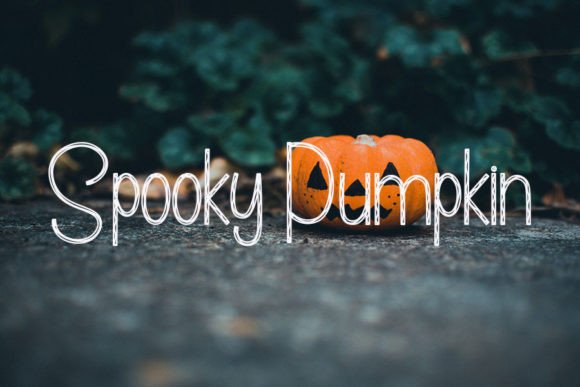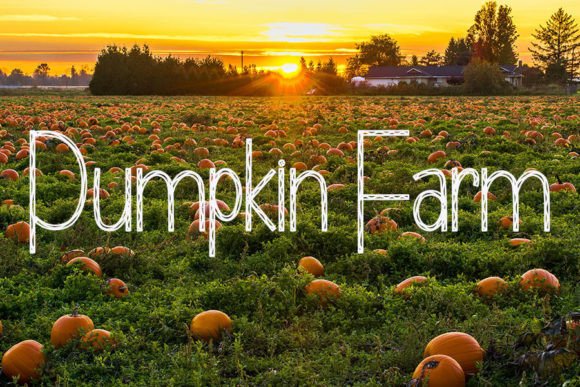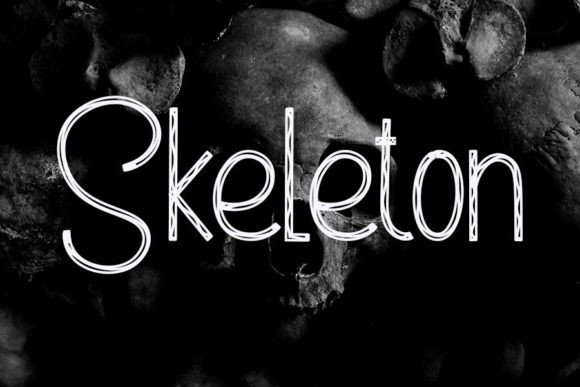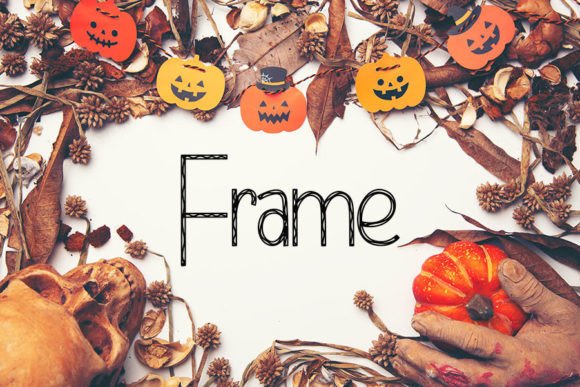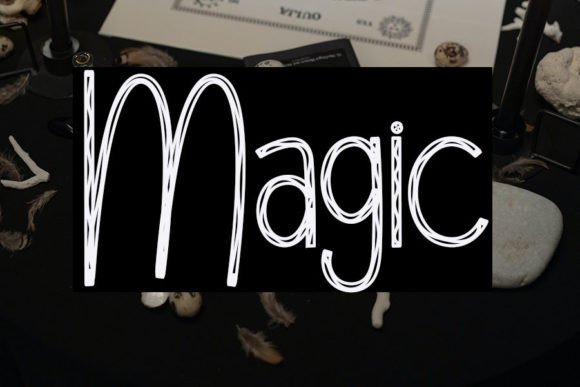
Happy Halloween Font: The Perfect Addition to Your Spooky Season Designs
Are you looking for a font that captures the essence of Halloween? Look no further than the Happy Halloween Font! This fun and cute handwritten font is perfect for adding a touch of whimsy and personality to your favorite projects. With its incredibly distinct and timeless style, you’ll fall in love with the Happy Halloween Font and want to use it to create spectacular designs all season long.
The Features of Happy Halloween Font
The Happy Halloween Font is a unique and versatile font that offers a range of features that make it perfect for designers and crafters. Some of its key features include:
- Handwritten style: The Happy Halloween Font has a charming handwritten style that’s perfect for creating spooky and fun designs.
- Distinctive look: The font’s incredibly distinct style sets it apart from other fonts, making it perfect for creating eye-catching designs.
- Timeless appeal: The Happy Halloween Font has a timeless quality that ensures it will remain popular for years to come.
Why Choose Happy Halloween Font?
So why choose the Happy Halloween Font for your spooky season designs? Here are just a few reasons:
- Perfect for Halloween designs: The Happy Halloween Font is specifically designed for Halloween, making it the perfect choice for creating spooky and fun designs.
- Adds a touch of whimsy: The font’s playful and whimsical style adds a touch of personality to any design.
- Versatile: The Happy Halloween Font can be used for a range of projects, from party invitations to social media graphics.
Design Ideas Using Happy Halloween Font
The Happy Halloween Font is perfect for a range of spooky season designs. Here are a few ideas to get you started:
- Party invitations: Create spooky and fun party invitations using the Happy Halloween Font.
- Social media graphics: Use the font to create eye-catching social media graphics, such as Halloween-themed Facebook posts or Instagram stories.
- T-Shirt designs: Create spooky and fun t-shirt designs using the Happy Halloween Font.
- Halloween cards: Use the font to create spooky and fun Halloween cards for friends and family.
Tips and Tricks for Using Happy Halloween Font
Here are a few tips and tricks for using the Happy Halloween Font:
- Experiment with colors: The Happy Halloween Font looks great in a range of colors, so don’t be afraid to experiment and find the perfect color scheme for your design.
- Mix and match fonts: The Happy Halloween Font pairs well with other fonts, so try mixing and matching to create a unique look.
- Use graphics and images: Add graphics and images to your design to make it more visually appealing.
In conclusion, the Happy Halloween Font is a fun and cute handwritten font that’s perfect for adding a touch of whimsy and personality to your spooky season designs. With its incredibly distinct and timeless style, you’ll fall in love with the Happy Halloween Font and want to use it to create spectacular designs all season long.